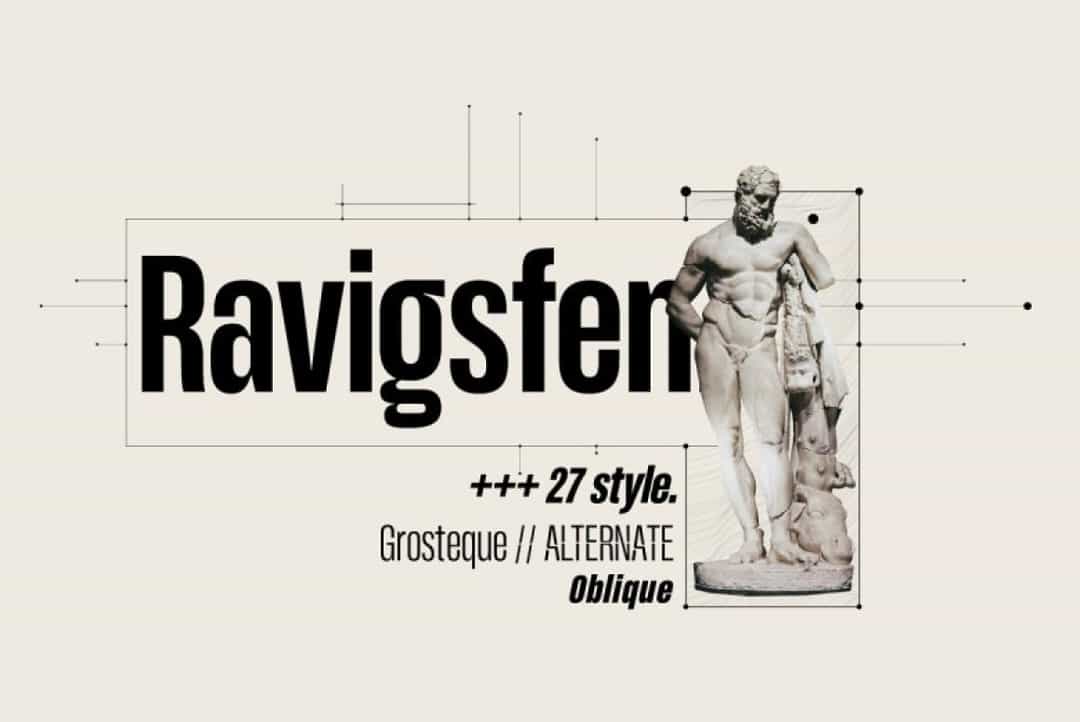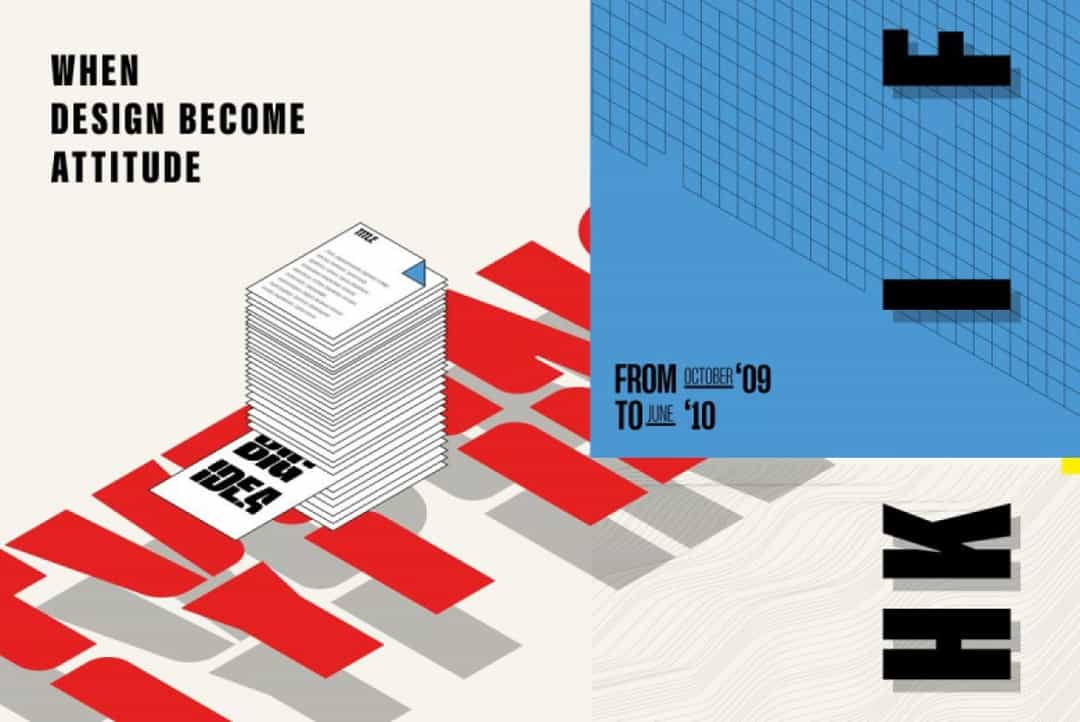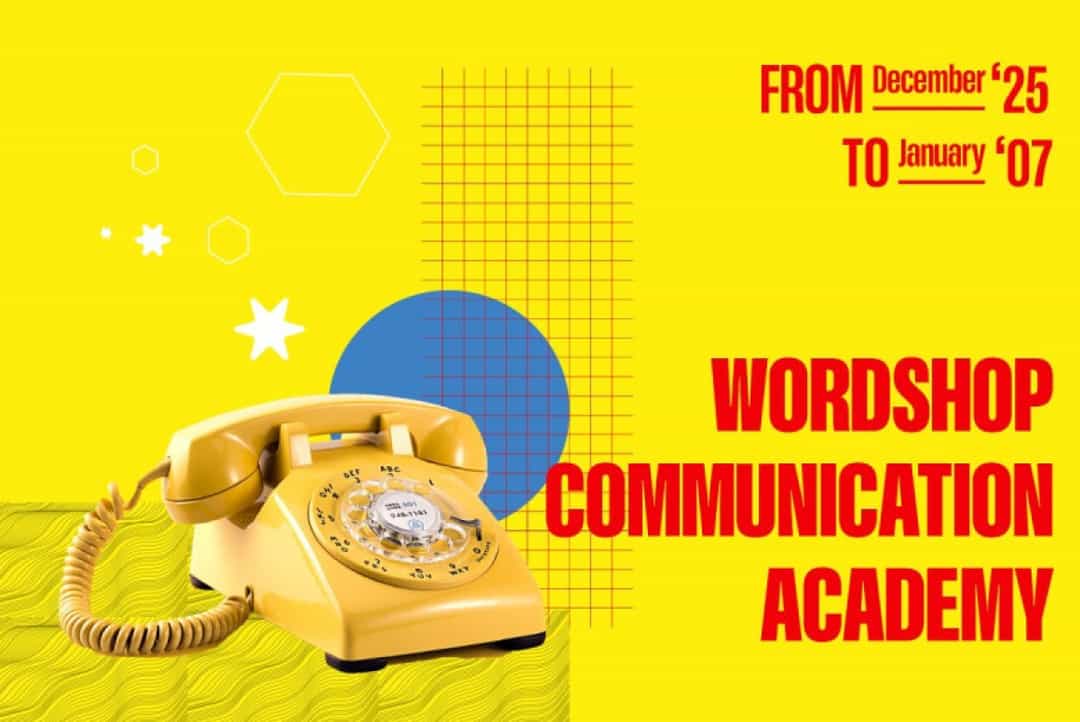
ZT Ravigsfen stands out in a landscape dominated by cutting-edge technological innovations as an eye-catching pivot point. A striking grotesque sans-serif font, ZT Ravigsfen captures the look and awe-inspiring nature of classic sci-fi genre, this font leads the user on an immersive time travel journey.